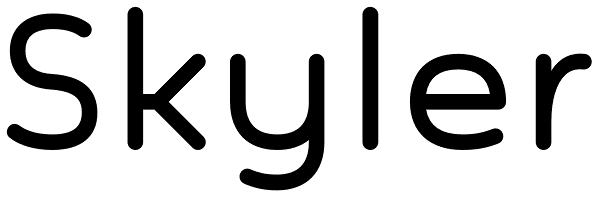
Skyler
Skyler is a rounded sans-serif with a familiar feel and distinctively modern letter forms. The Skyler family consists of Light, Regular and Bold weights. Each weight is accompanied by a genuine italic variant for a total of six styles. Plus the...